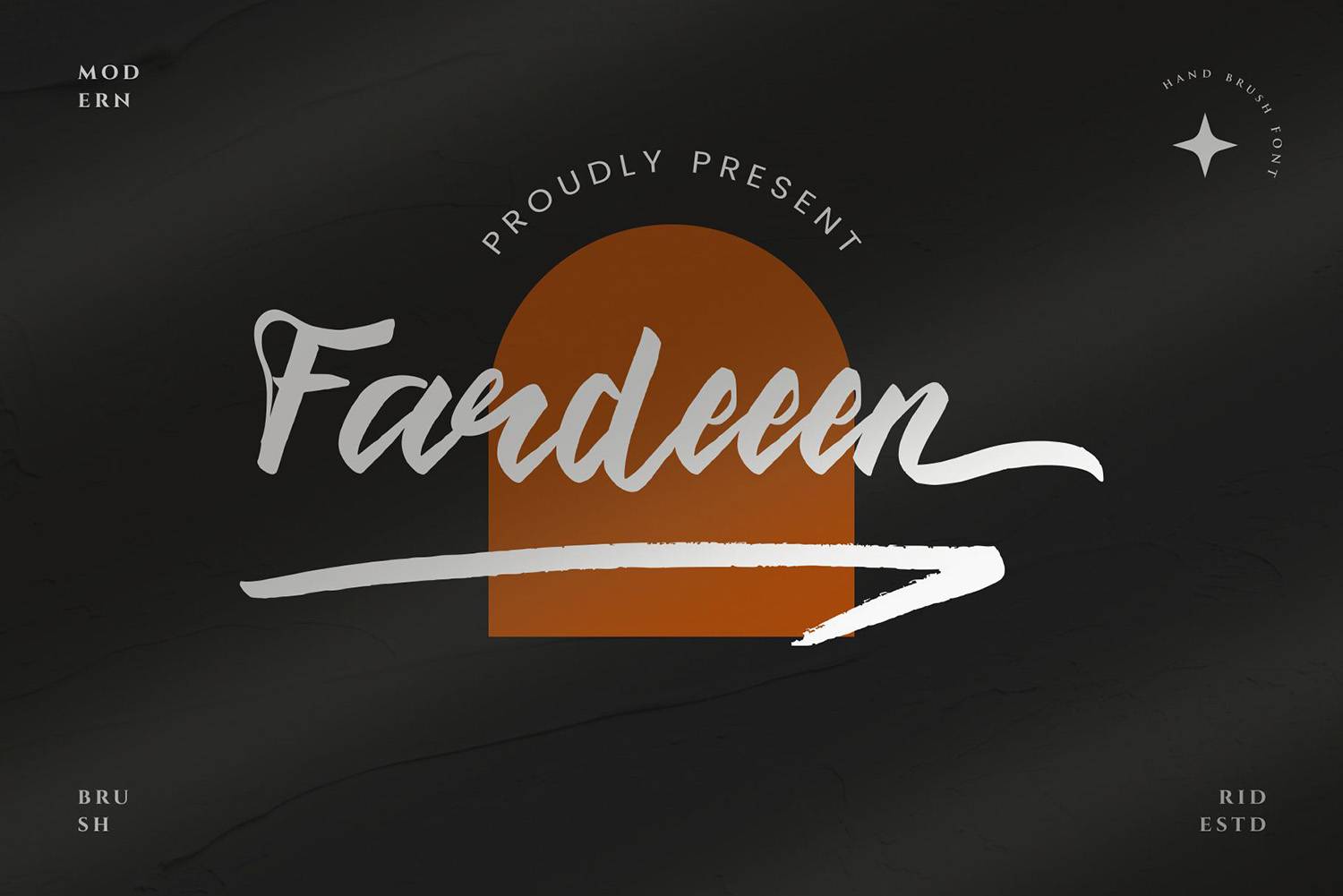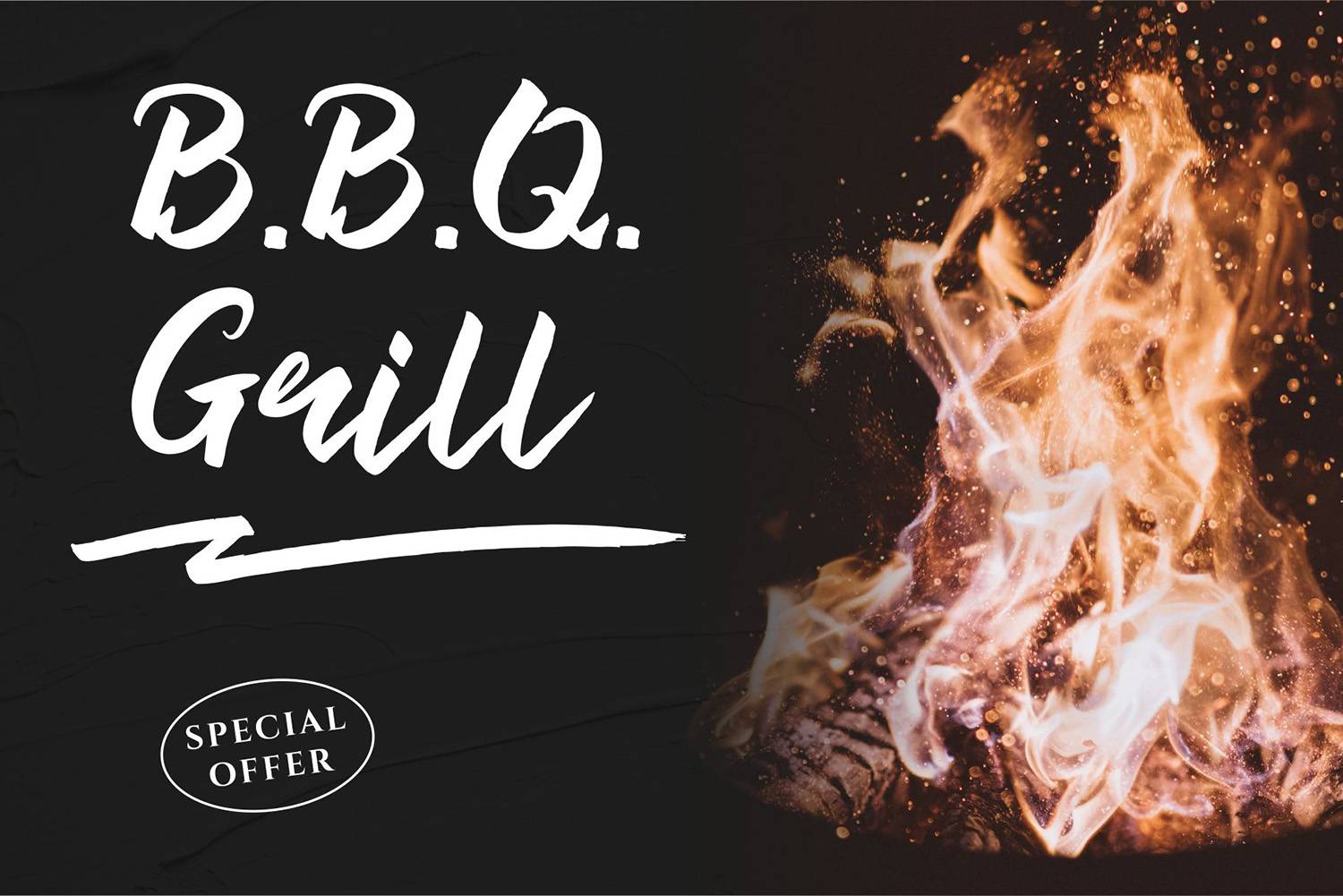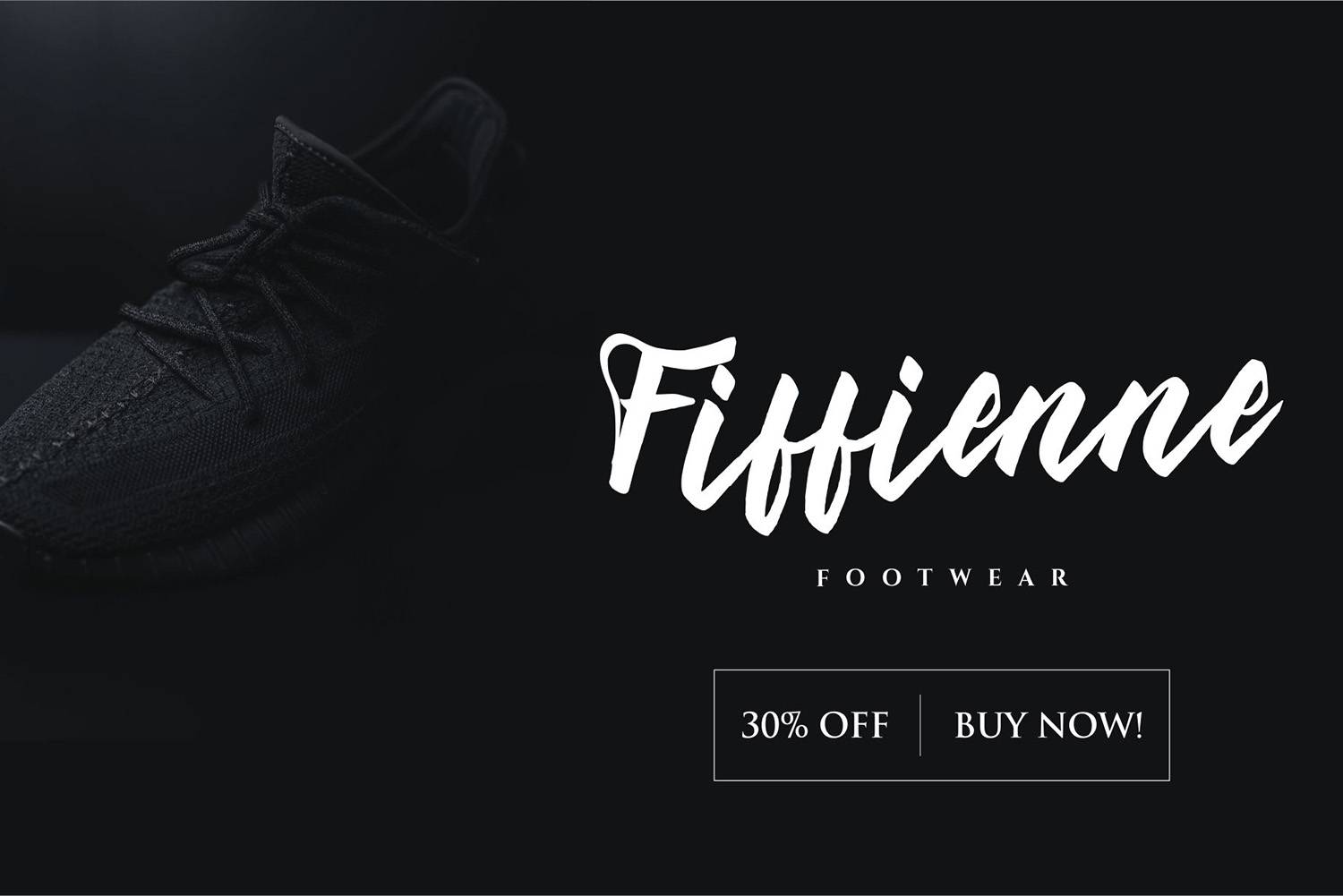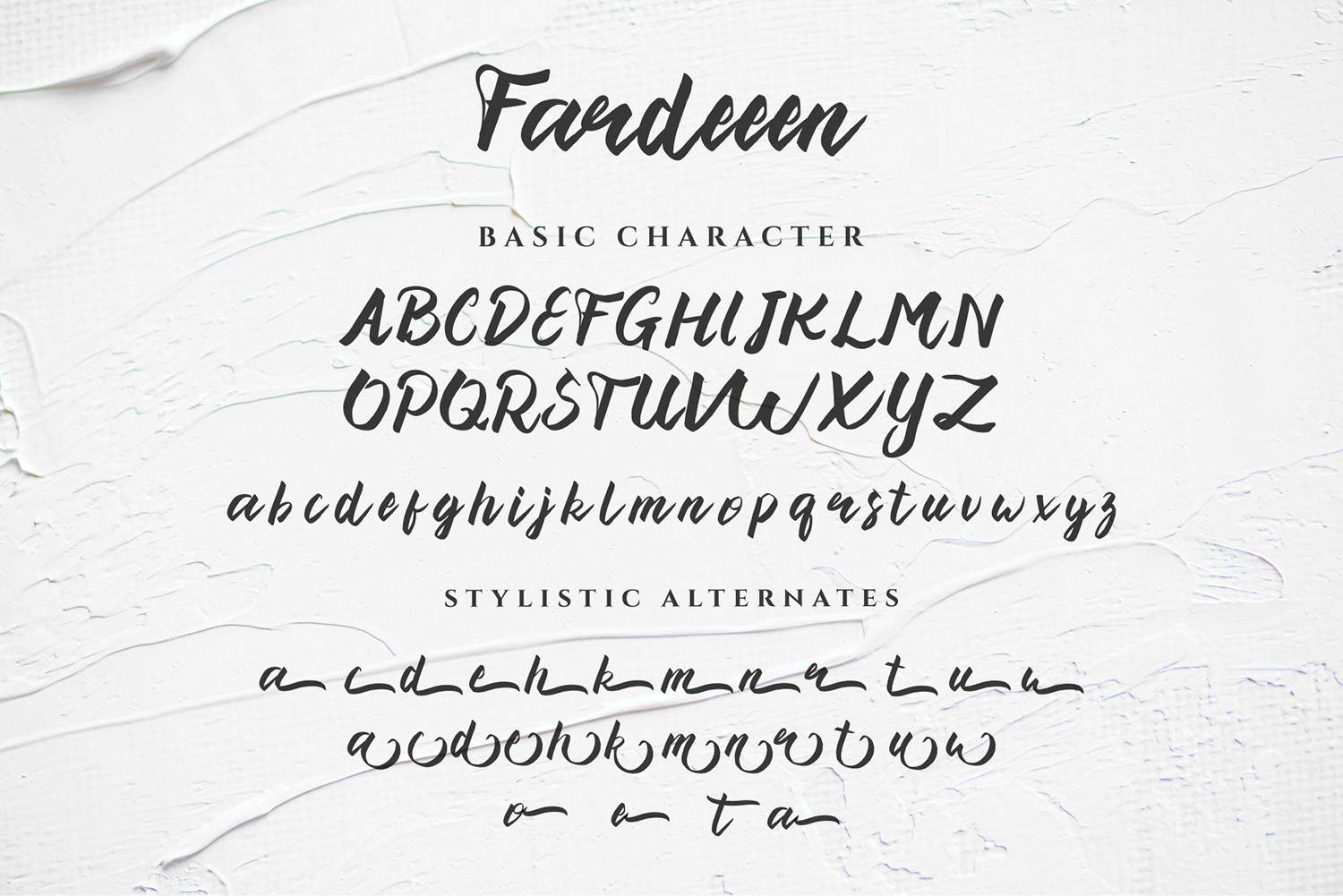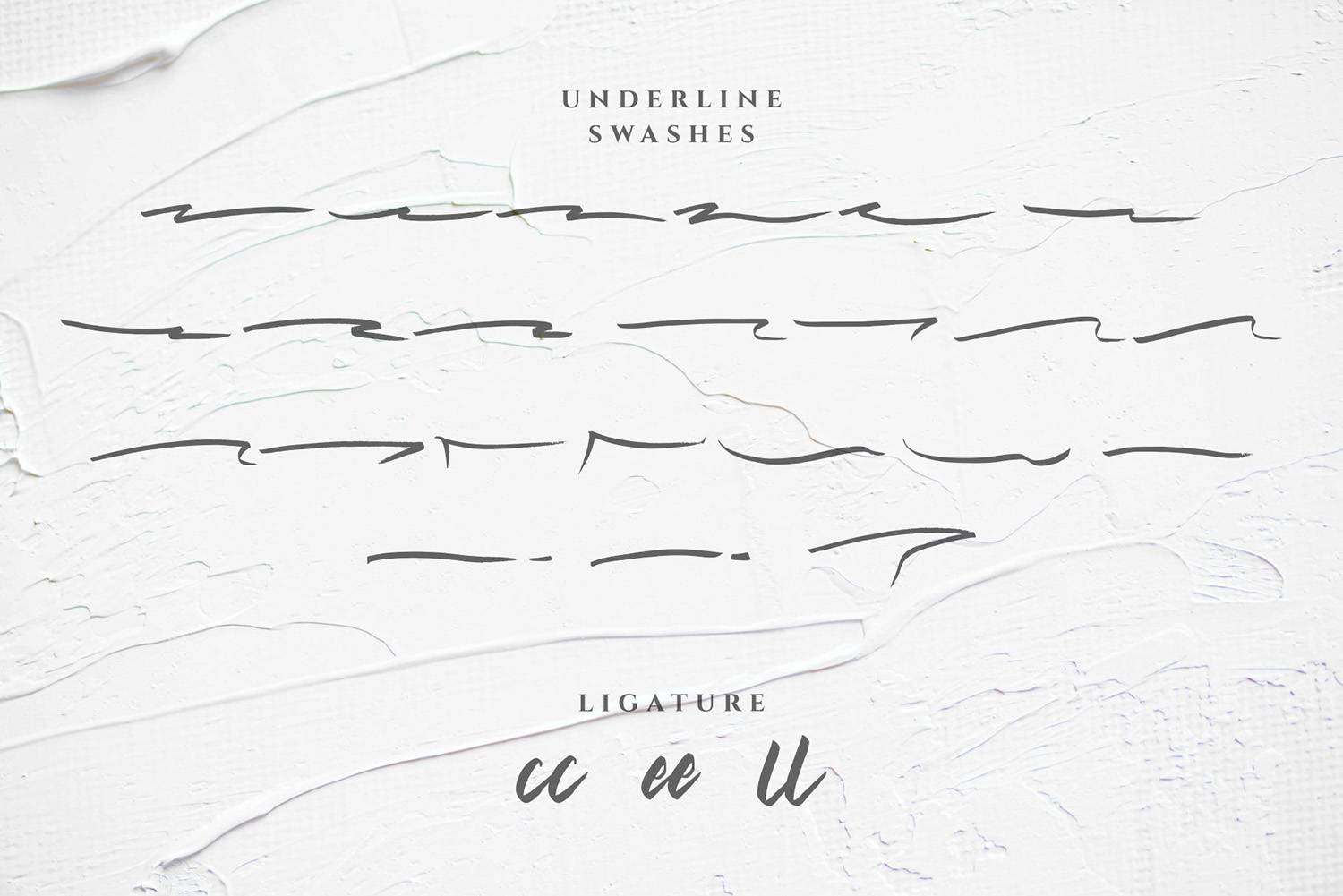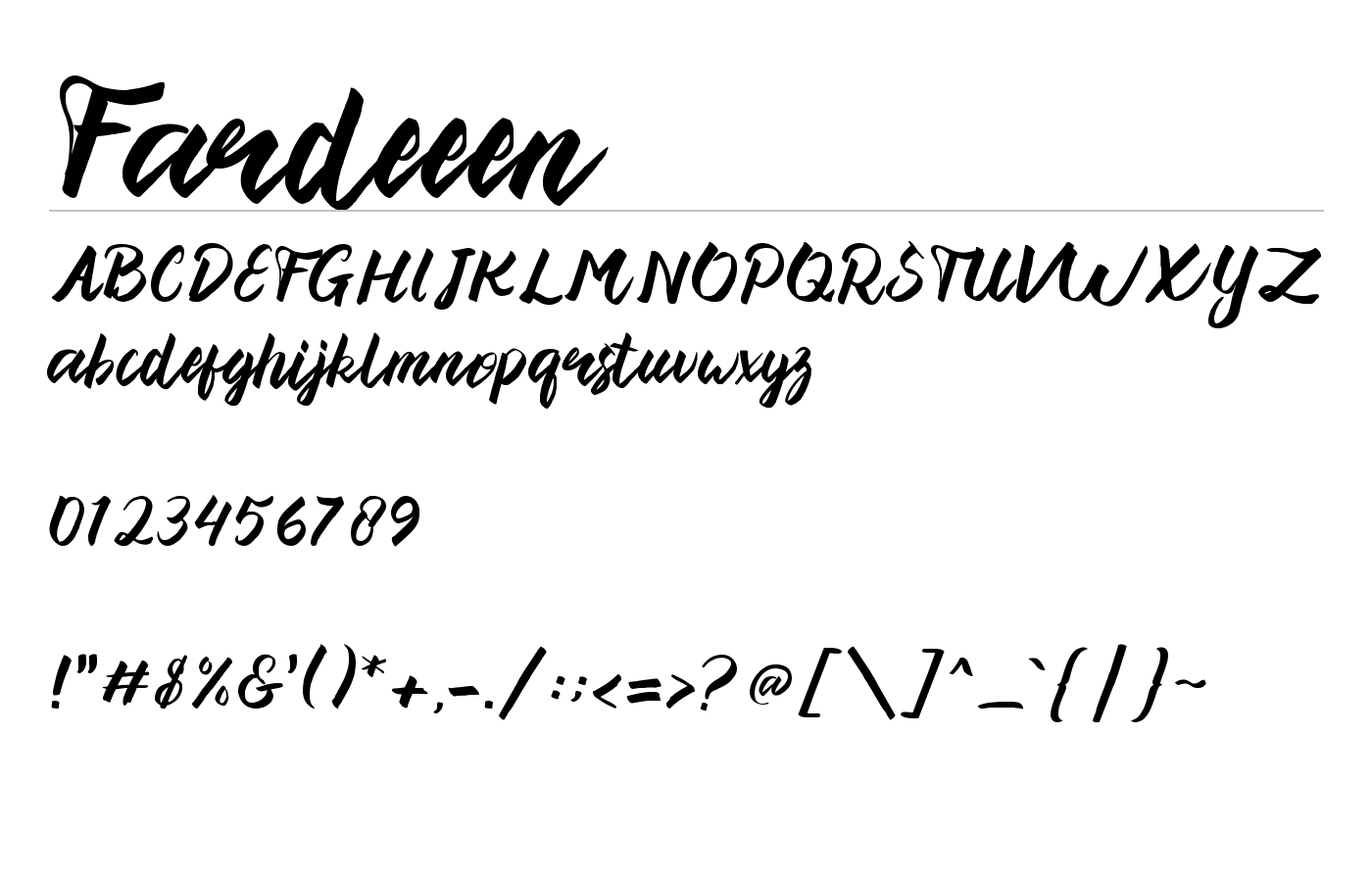
Fardeeen is a lively, handwritten script font with a bold and slightly condensed style that brings energy and personality to any design. Its fluid strokes and noticeable contrast create a dynamic yet approachable feel, making it ideal for creative branding, invitations, and eye-catching headlines. This font’s casual elegance works well for projects needing a personal, artistic touch without sacrificing readability.
Fardeeen Font
About Fardeeen Font
| Font family | Fardeeen Font |
| Languages supported | Latin, Greek, Thai |
| Release date | 2021-09-11 |
| Designer | Ride Studio 2021 |